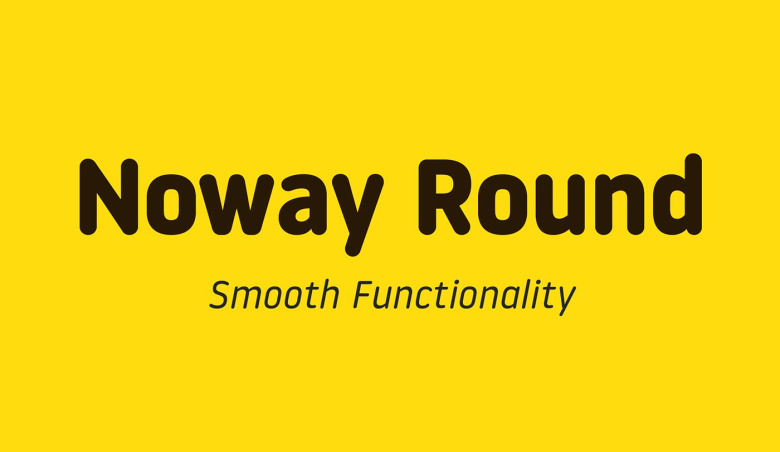
Noway Round Font Family
Introduction Noway Round Font Family! Noway Round Font designed by atipo ®. Noway Round is based on the successful Noway font family. Originally designed as a corporate and signage typeface for London Luton Airport.
Noway Round font-family is set up in 10 weights: Thin, Light, Regular, Medium, Bold & Italics and a pack of 159 icons for every possible user. It is ideally suited for branding, packaging, editorial, wayfinding and signage as well as web and screen design.